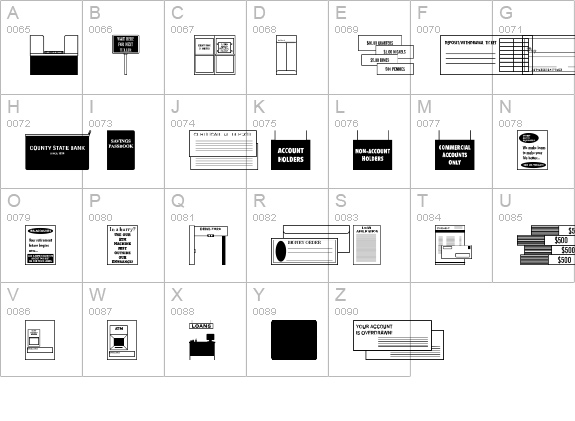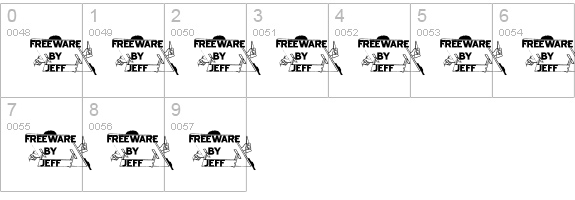
Bank Visit JL Font Details
Bank Visit JL font is a modern and sleek typeface that exudes professionalism and sophistication. Its clean lines and sharp angles make it perfect for a wide range of design projects, from business cards to web graphics. The font features a unique blend of classic elegance and contemporary flair, making it a versatile choice for any designer. One of the best things about Bank Visit JL font is that it is completely free to download at FontsMarket.com. This means you can easily access this high-quality font without any cost, making it a great addition to your font library. With its bold presence and stylish appeal, Bank Visit JL font is sure to make a lasting impression on any project you use it for.